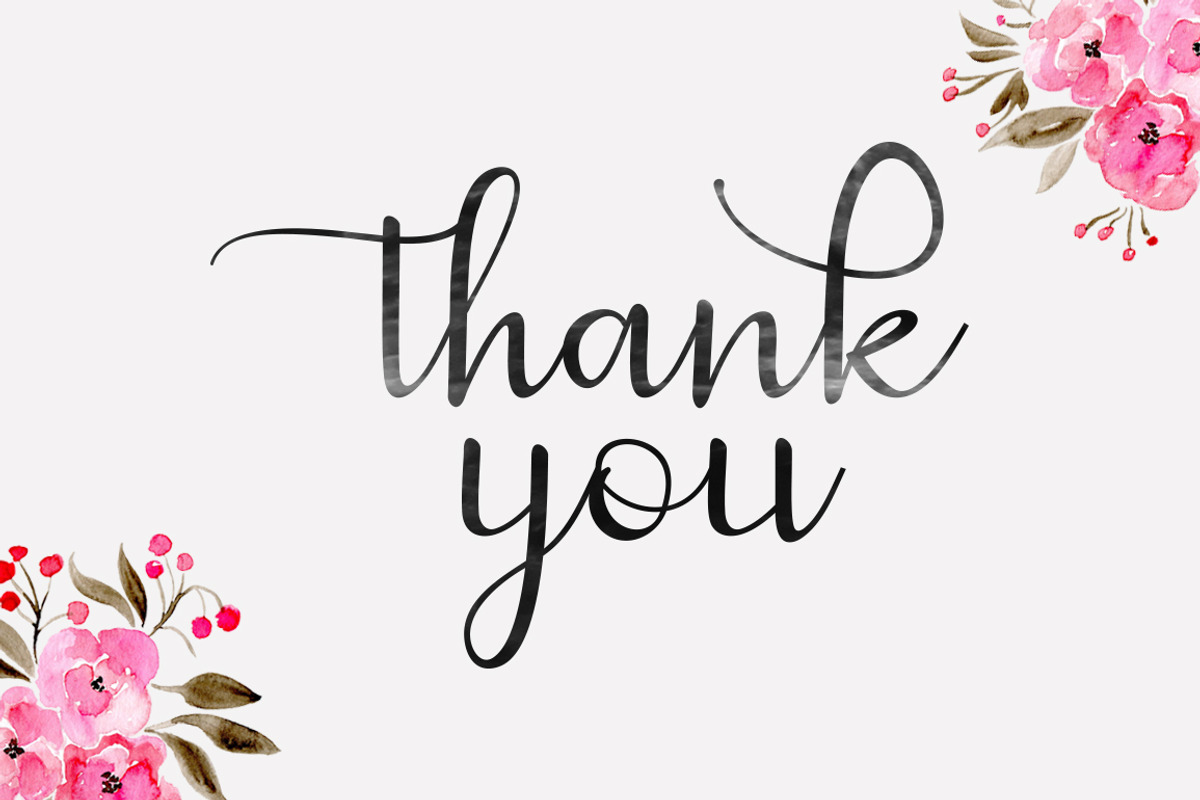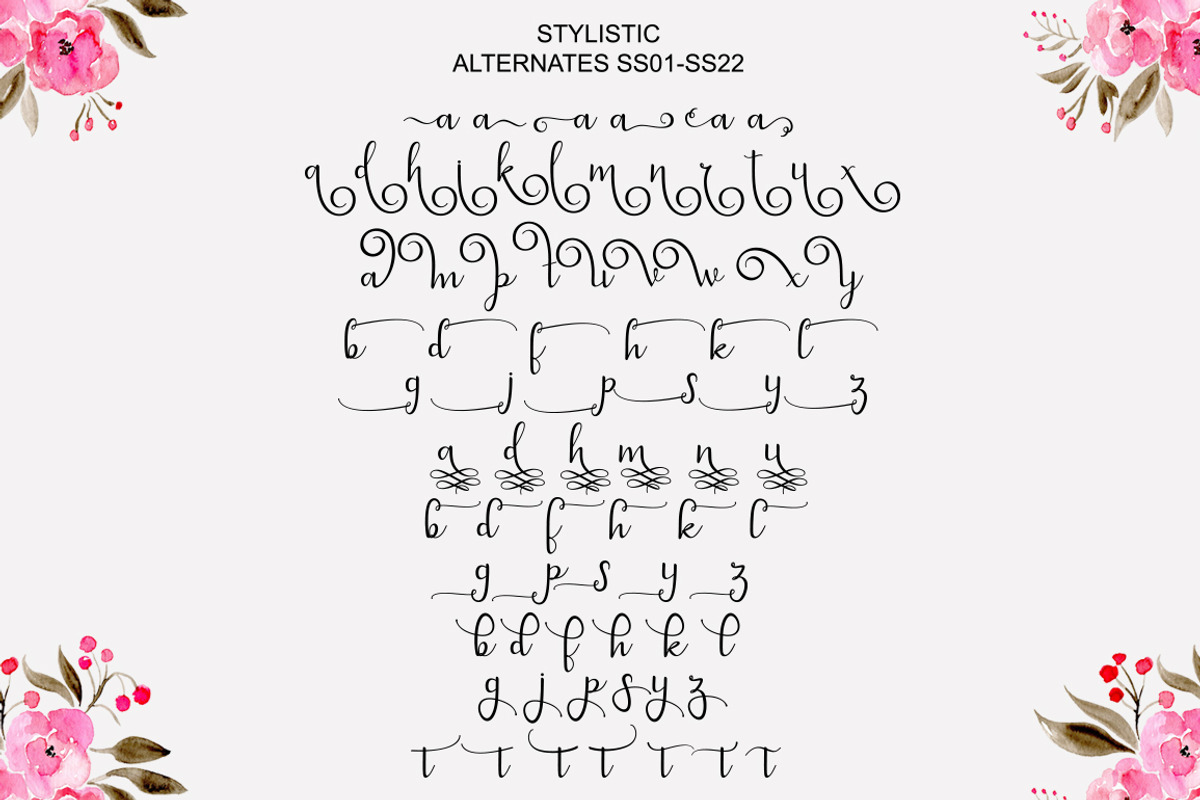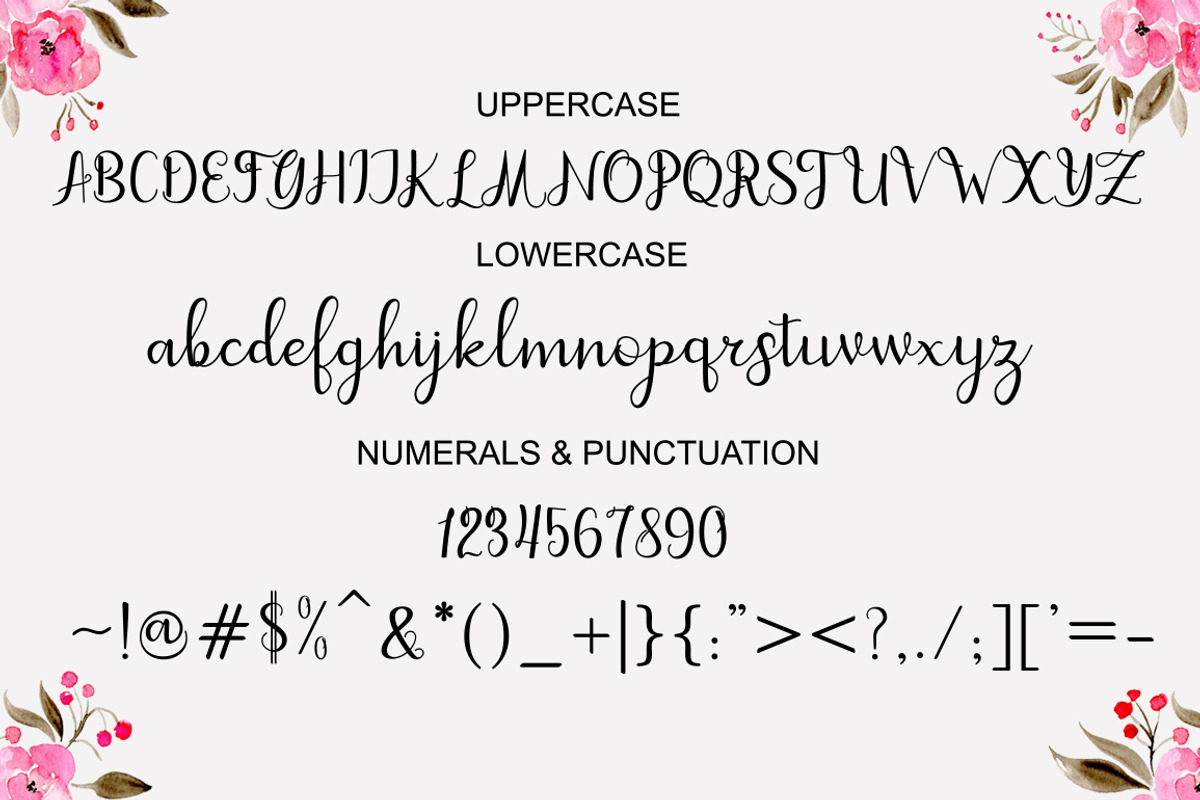
dahlia script
Introducing
Dahlia script
Dahlia script a new fresh & modern script with a handmade calligraphy style, decorative characters and a dancing baseline! So beautiful on invitation like greeting cards, branding materials, business cards, quotes, posters, and more!!
Dahlia script: